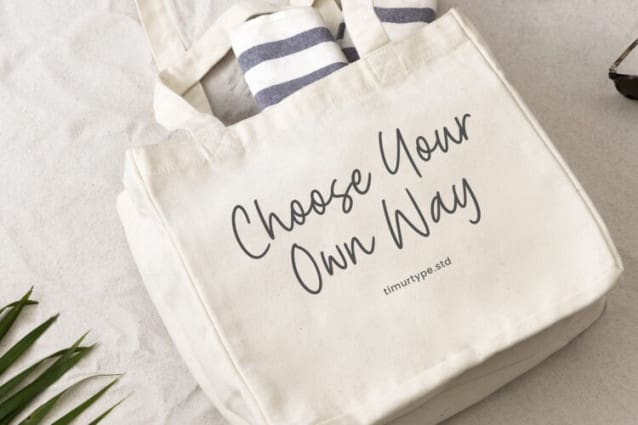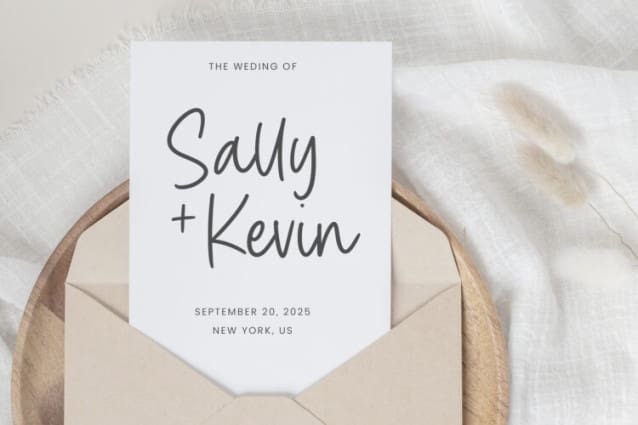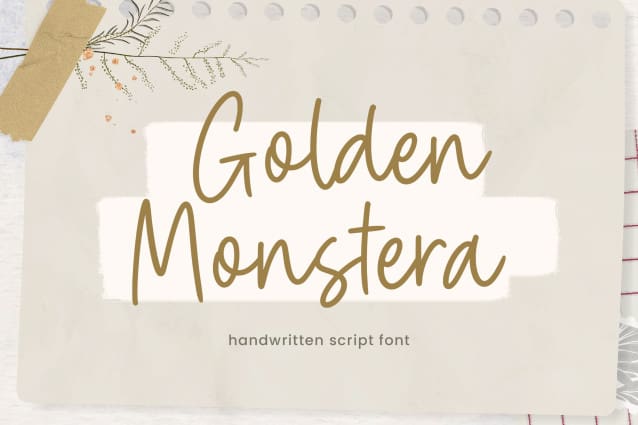
Golden Monstera Font
Golden Monstera Font is a Handwritten script font that is modern and fresh, and will bring a warm and inviting feel to your business. Take advantage of the fonts and experience the magic for yourself.
Golden Monstera font is perfect for product packaging, branding project, megazine, social media, wedding, or just used to express words above the background.